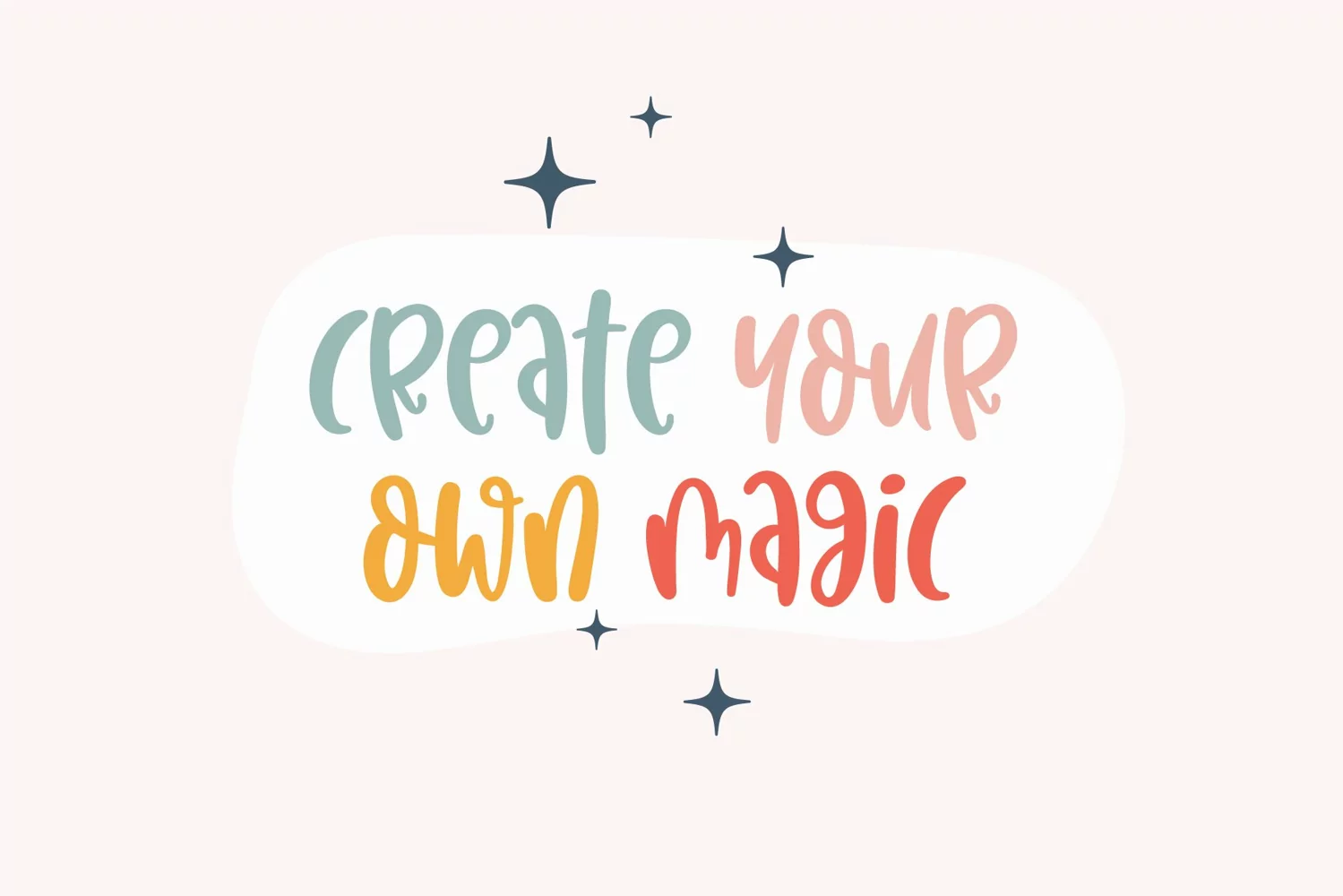
Good things are coming - An informal mixedcase font
Good things are coming is a handwritten mixed-case font. Whatever the topic, this font will be a wonderful asset to your font library, as it has the potential to enhance any creation.